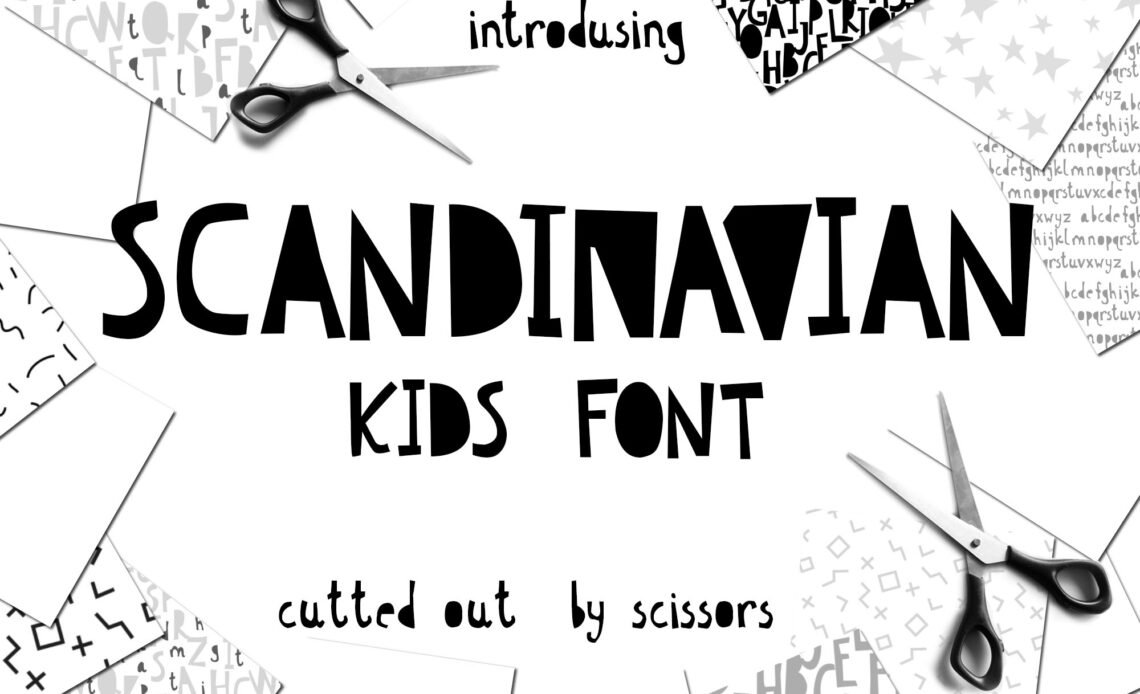
Journey into the Whimsical World of Scandinavian: A Kid's Font Rooted in Playful Charm
Welcome to the font collection that will captivate young minds and ignite their creativity. Introducing Scandinavian, a kids font that embodies the enchanting spirit of Scandinavian Monochrome design. This display font family is a playful masterpiece, lovingly crafted by Iradvilyuk, a visionary artist who transformed paper cutouts into an authentic font. Each letter is a tangible piece of childhood magic, brimming with personality and the essence of wonder.
Explore the Enchanting Features of Scandinavian:
- Main uppercase: Elevate your designs with a collection of uppercase letters that exude Scandinavian charm.
- Alternative uppercase: Add a touch of uniqueness to your creations with our carefully curated selection of alternative uppercase letters.
- Uppercase double letters: Bring an element of playfulness to your designs with double uppercase letters that embody the exuberance of childhood.
- Lowercase: Let your words dance and twirl with the whimsical lowercase letters, perfect for crafting messages filled with joy and laughter.
Indulge in the Scandinavian Experience:
- Immerse yourself in the beauty of Scandinavian Monochrome design, where simplicity and elegance intertwine.
- Experience the tactile delight of paper cutouts transformed into digital letters, each carrying a story of its own.
- Witness the magic of your creative vision brought to life as you weave words into enchanting works of art.
Unleash Your Creativity with Scandinavian: